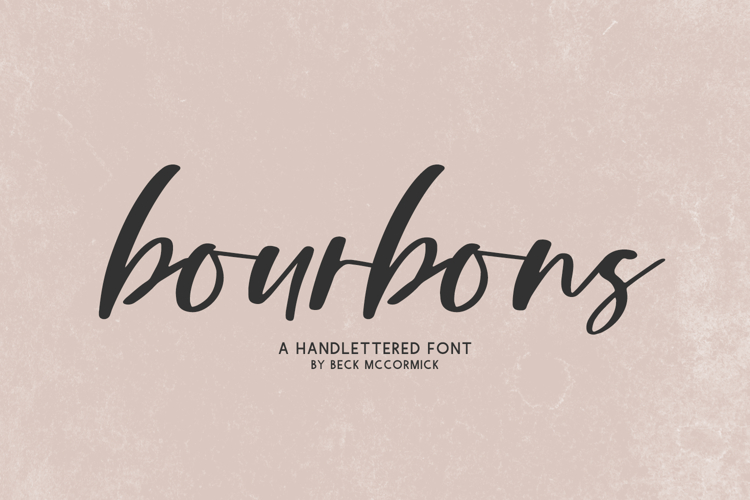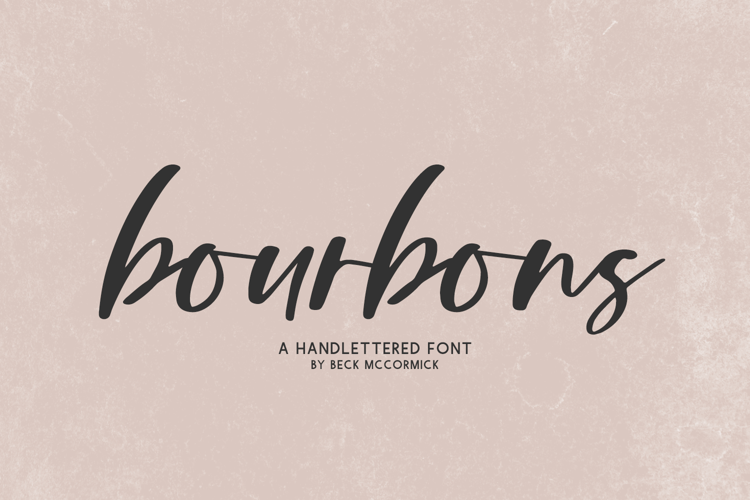
Introducing Bourbons, a modern calligraphy script mimicking natural handwriting.
Bourbons is best for:
- modern, edgy projects with your Cricut or Silhouette machine, or your SVG design business
- farmhouse decor and crafts
- digital planners & apps like Goodnotes
- website design + website accents, blog design
- graphic tee shirt design & other apparel